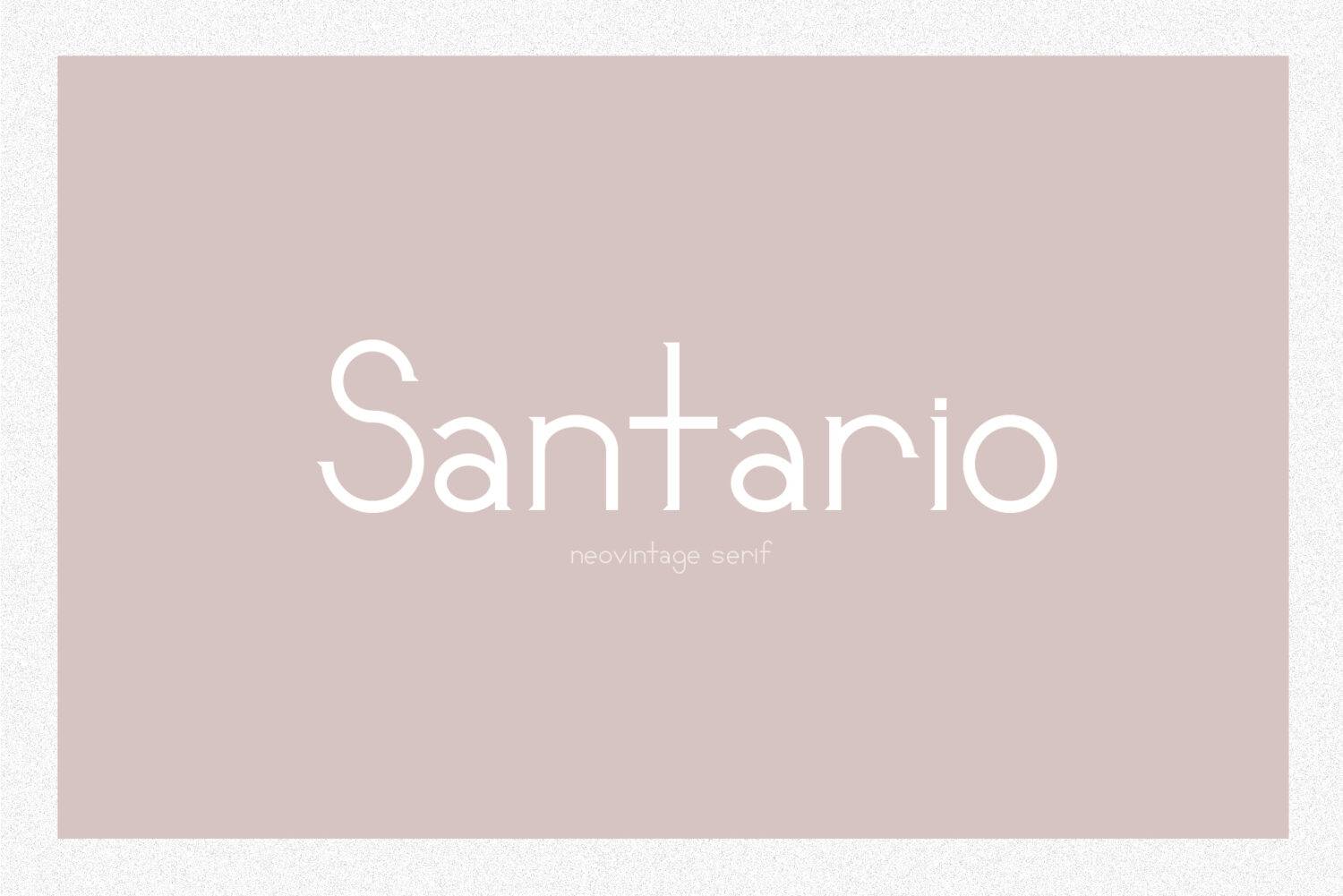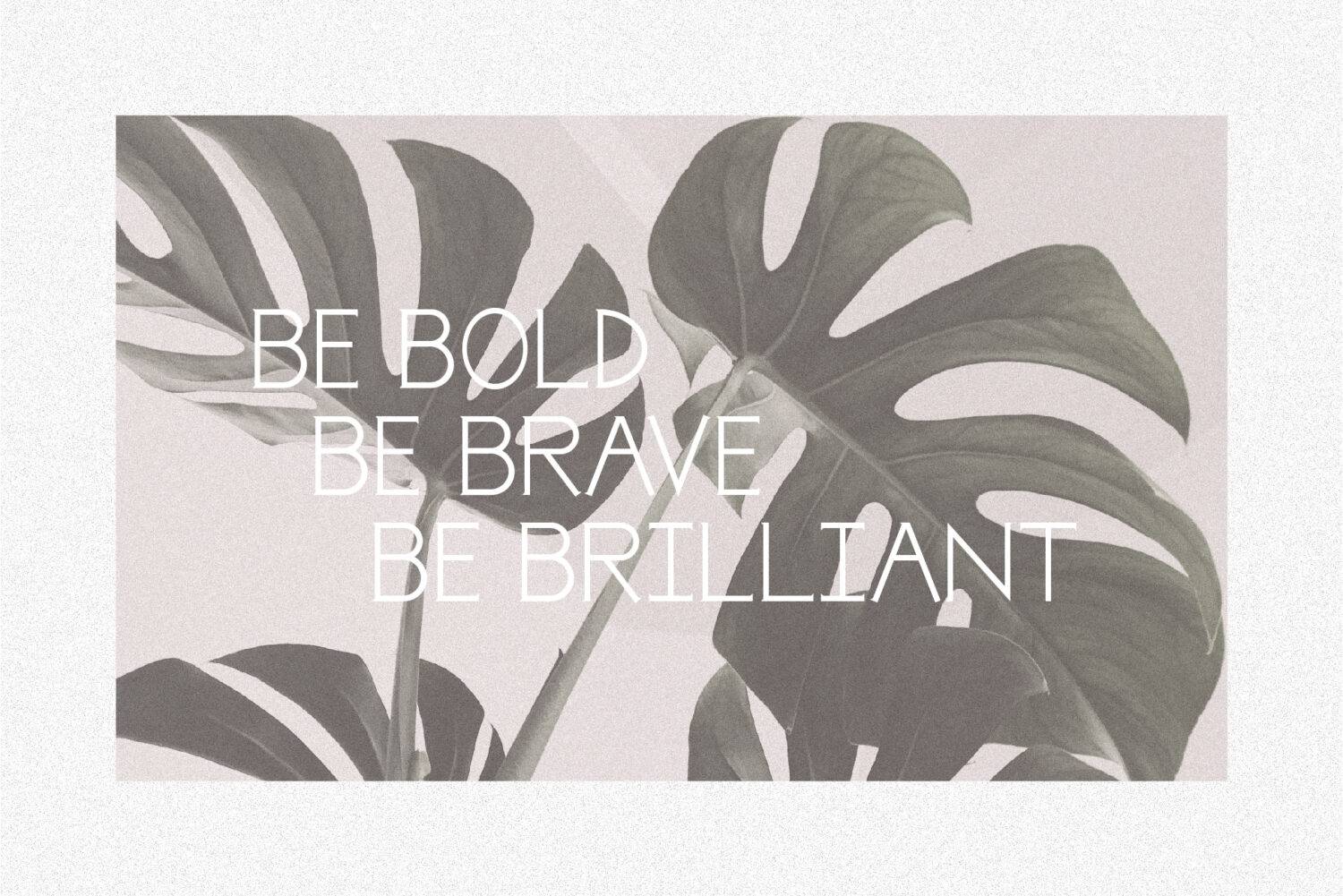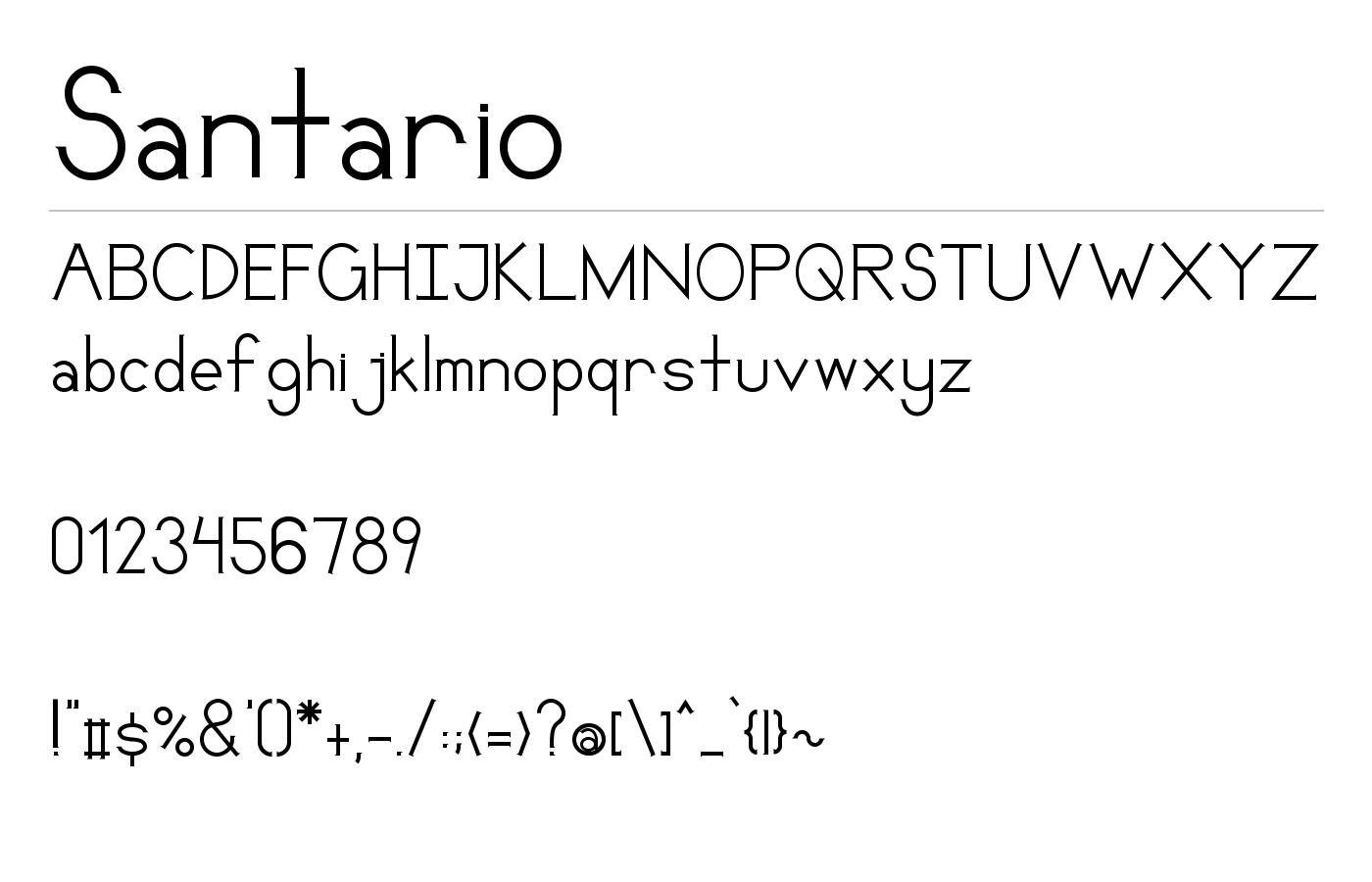
Santario is a modern serif font with a slender, elegant design characterized by its thin strokes and subtle contrast, giving it a light and airy feel. Its distinctive letterforms, including unique curves and angled terminals, combine sophistication with a touch of playfulness, making it ideal for fashion branding, editorial headlines, and stylish packaging. This font works best where a refined yet contemporary look is desired, providing clarity and charm without overwhelming the design.
Santario Font